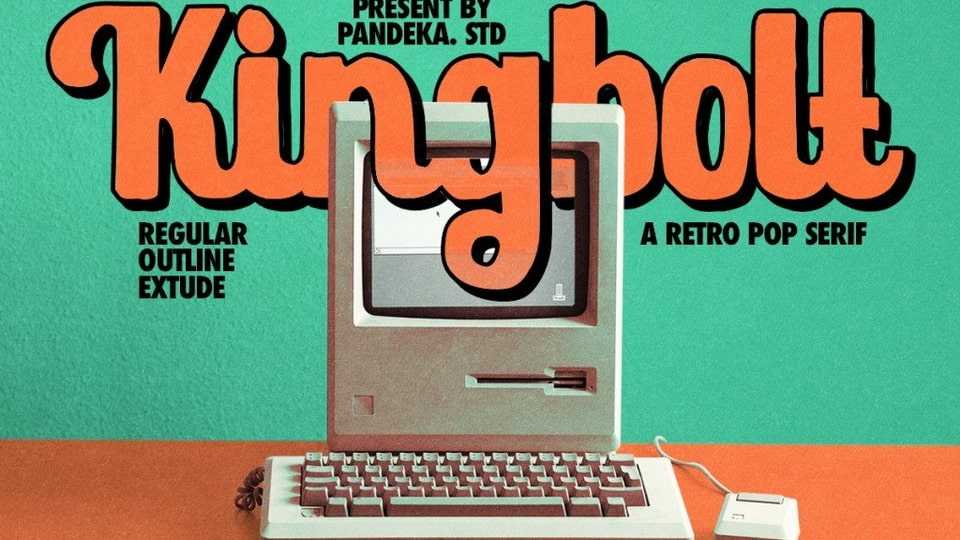
Download Kingbolt font, a hand drawn bold retro typeface that contains Outline and Extrude version. You can use to make a logo for branding, best for packaging design, and quotes.